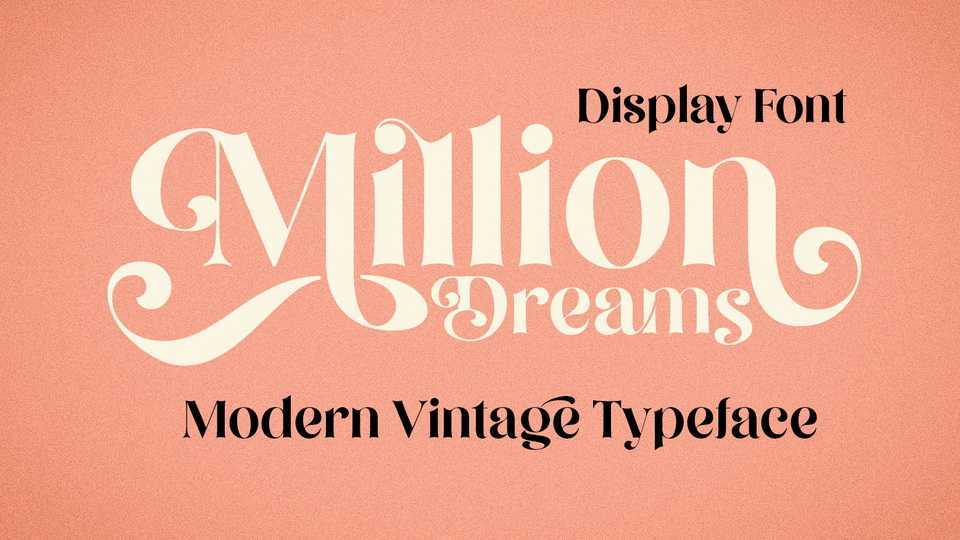
Download Million Dreams font, an elegant vintage serif typeface. With its incredibly versatile style Million Dreams is perfect to to create gorgeous wedding invitations, beautiful stationary art, eye-catching social media posts and more.
Designer: Dean Nugraha